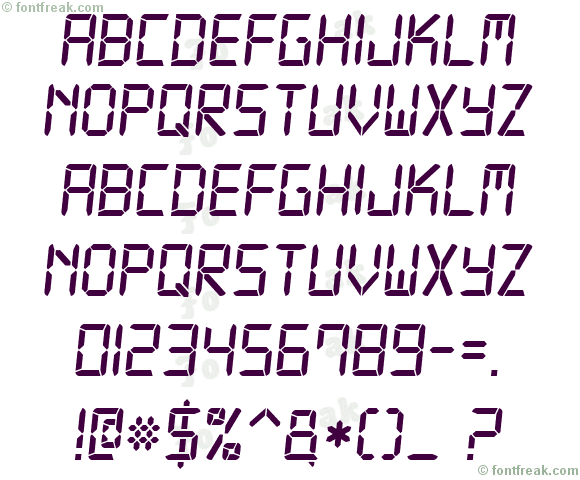
Digital-7
About Digital-7
Digital-7 by Style-7 is a striking display font that embodies a futuristic, digital aesthetic. As a monoitalic typeface, it features consistent stroke weights, giving it a clean, uniform look that is perfect for a variety of applications. The design showcases an intriguing combination of geometric shapes and smooth curves, creating a unique visual appeal that stands out in any design context. The spacing between characters is well-considered, allowing for legibility while maintaining a compact appearance that enhances its modern style.
This font is ideal for use in various digital applications. Graphic designers can utilize Digital-7 for eye-catching website headers, tech-related branding, or promotional materials that aim to convey innovation and modernity. Small business owners looking to create a distinct identity for their products can leverage this font in packaging design, helping their offerings stand out on shelves. Additionally, content creators can use Digital-7 in social media graphics or video overlays, ensuring that their messages resonate with a tech-savvy audience. Its unique features make it suitable for video game titles, app interfaces, or even event flyers focusing on technology or gaming themes.
What sets Digital-7 apart is its distinctive blend of simplicity and futuristic flair, making it a versatile choice for various design needs. Whether for professional branding or personal projects, the Digital-7 font free download allows users to express creativity while maintaining a contemporary edge. This font is sure to leave a lasting impression in any visual design.